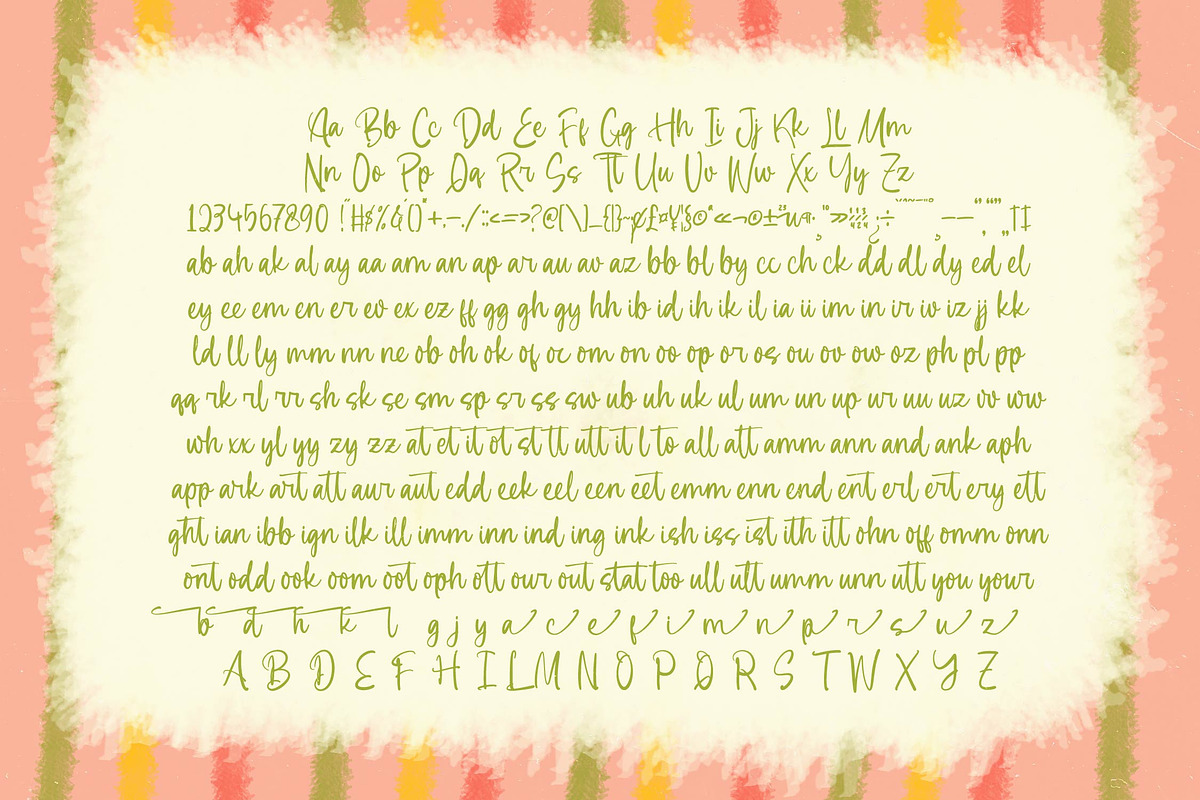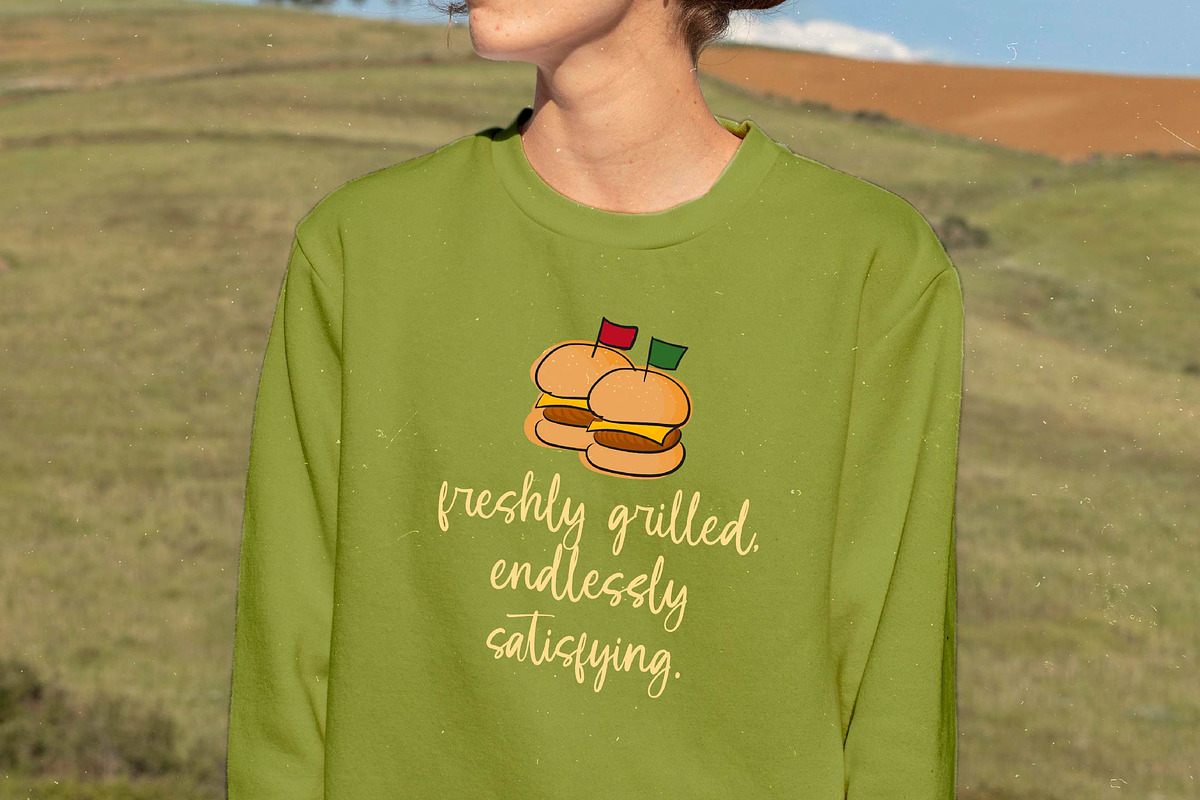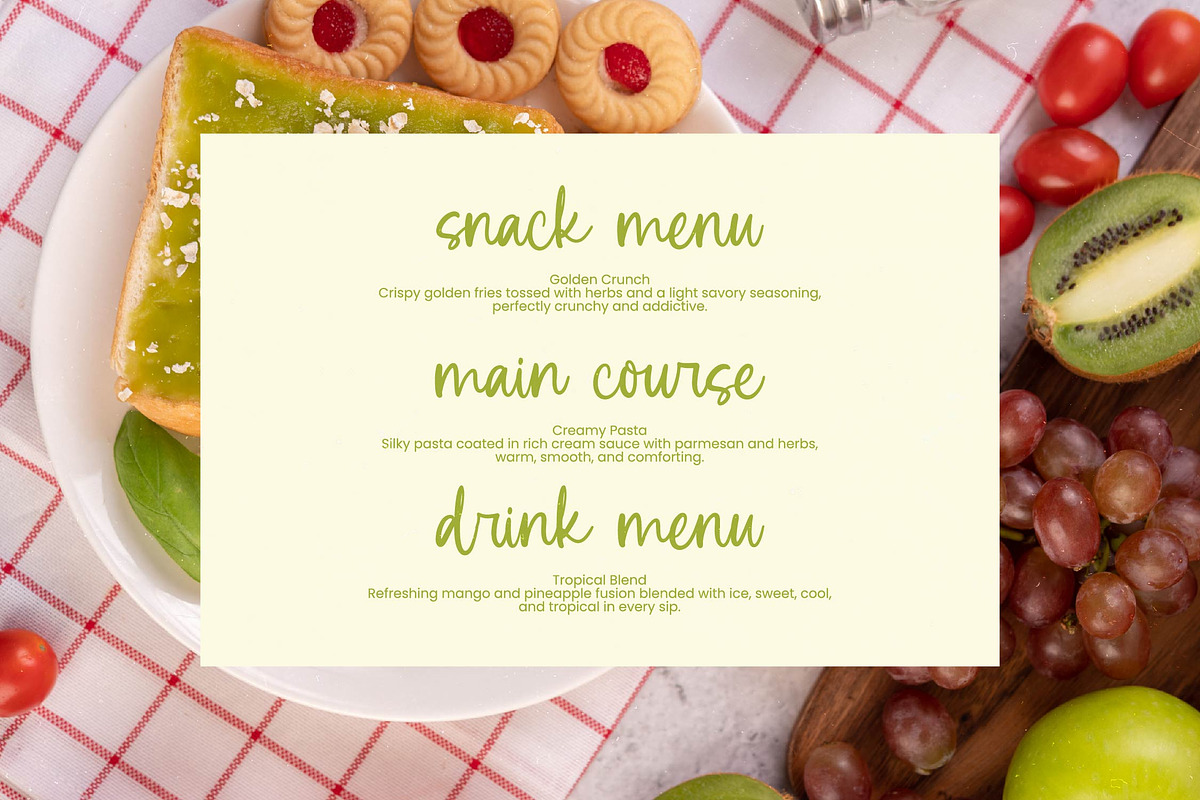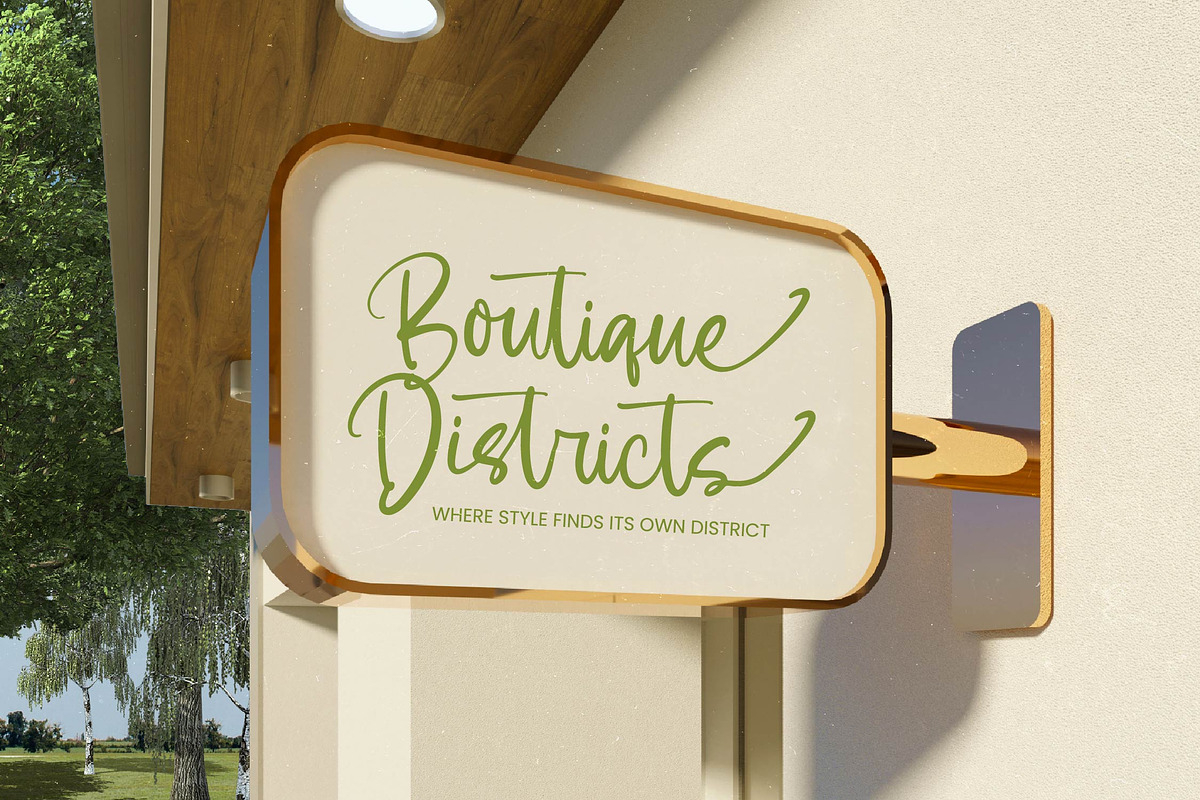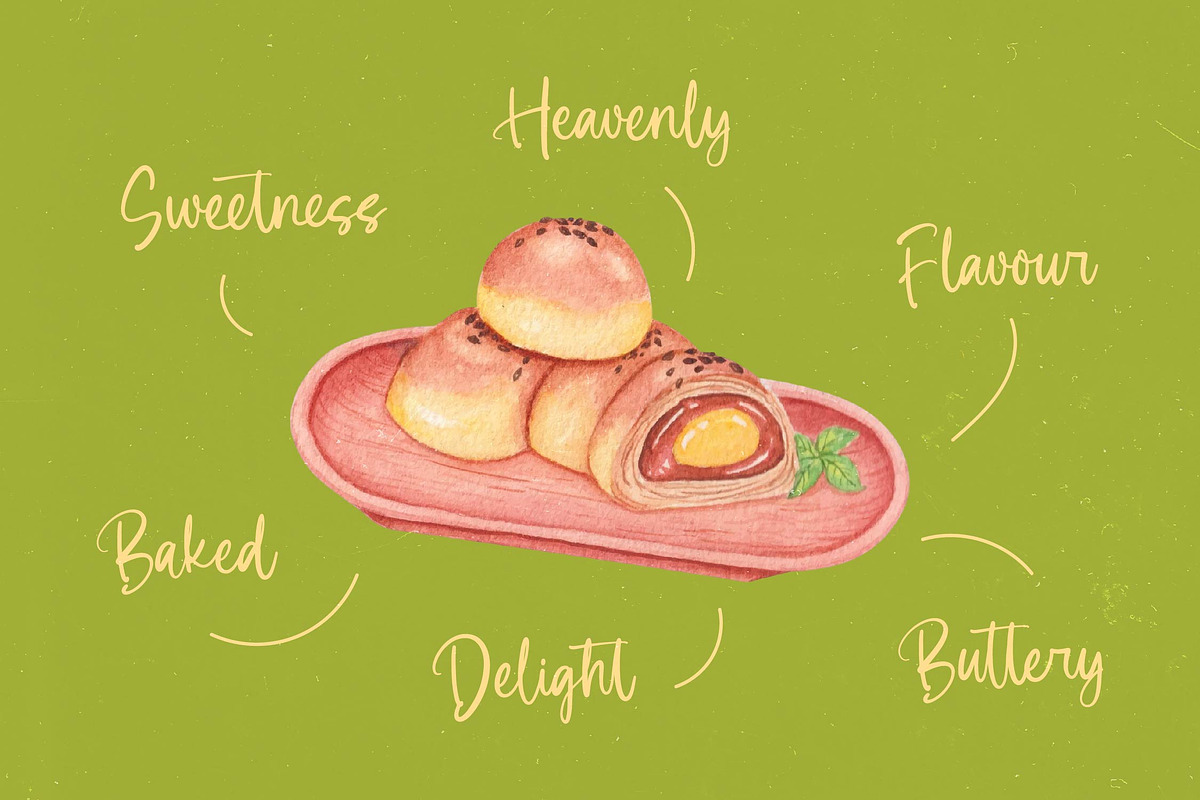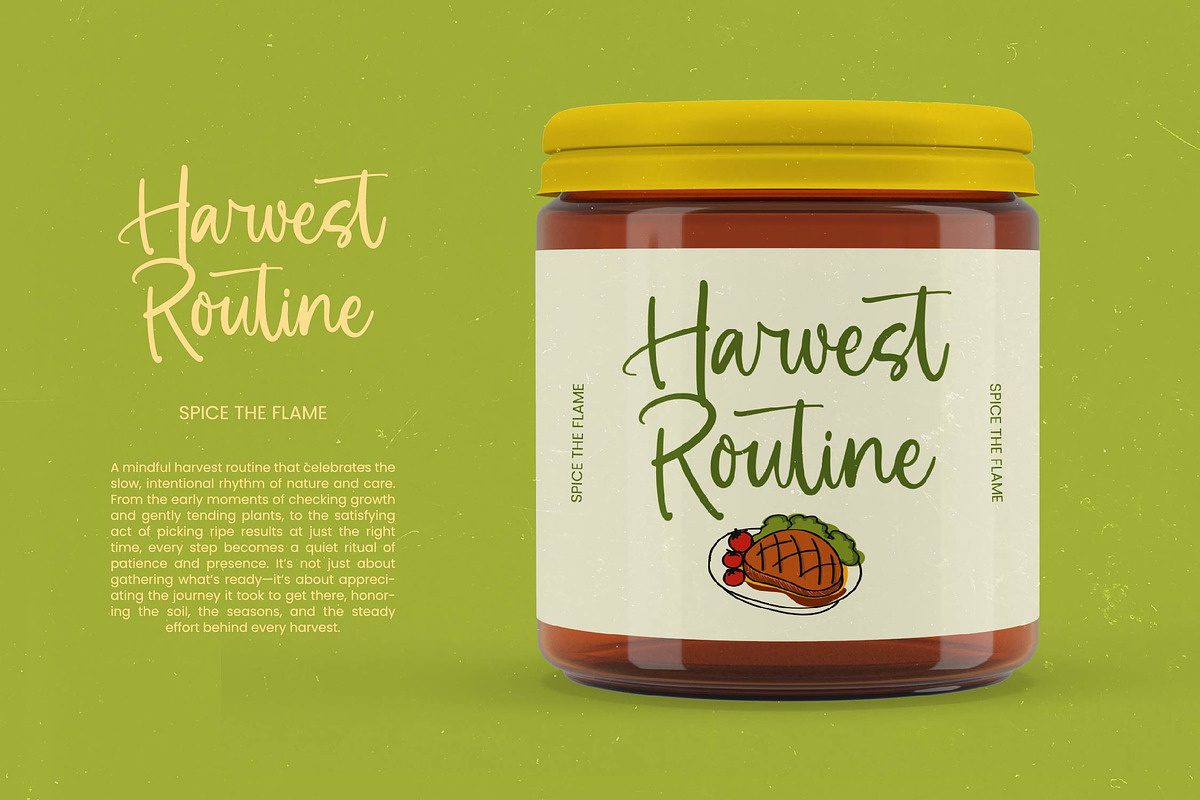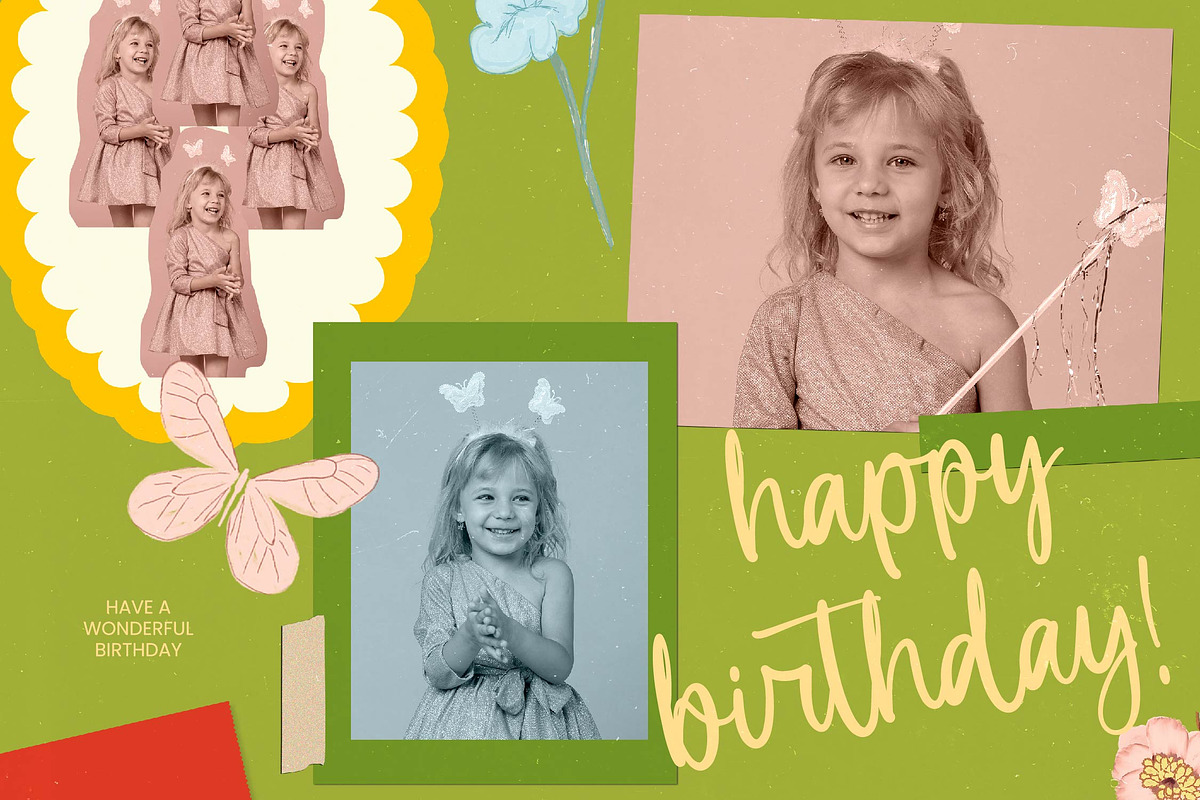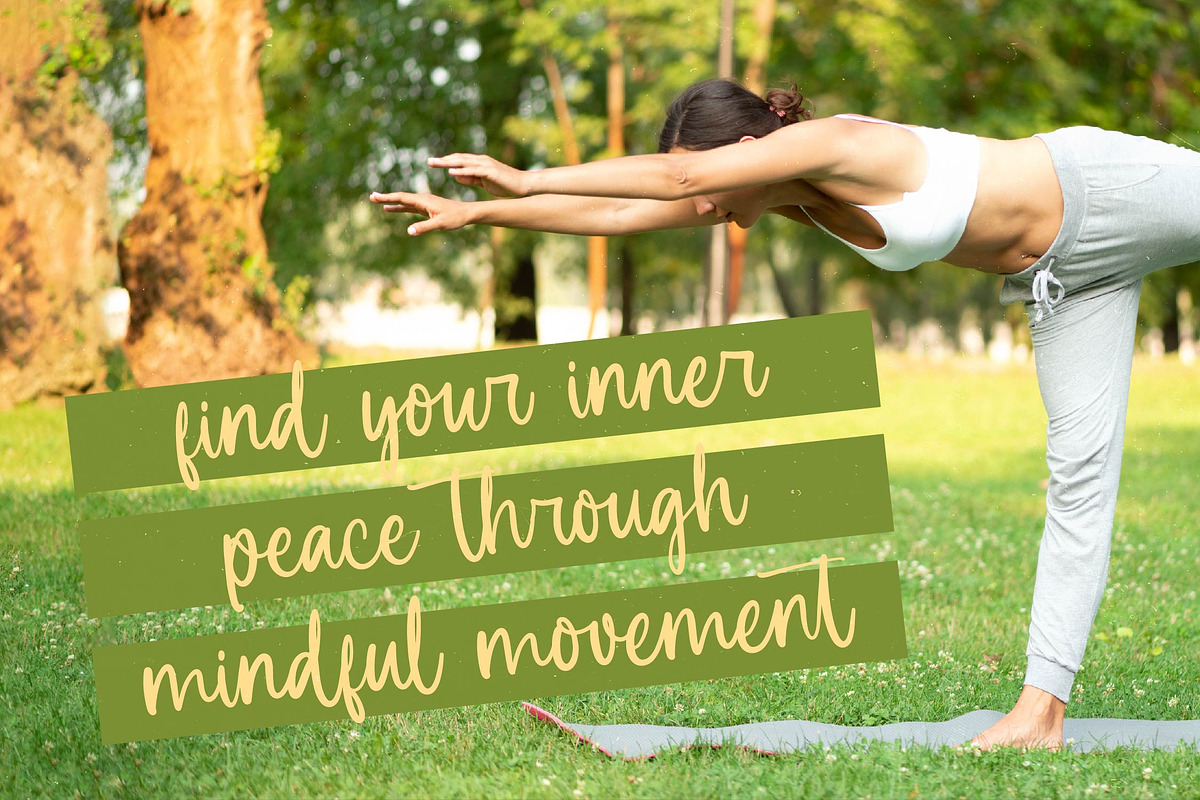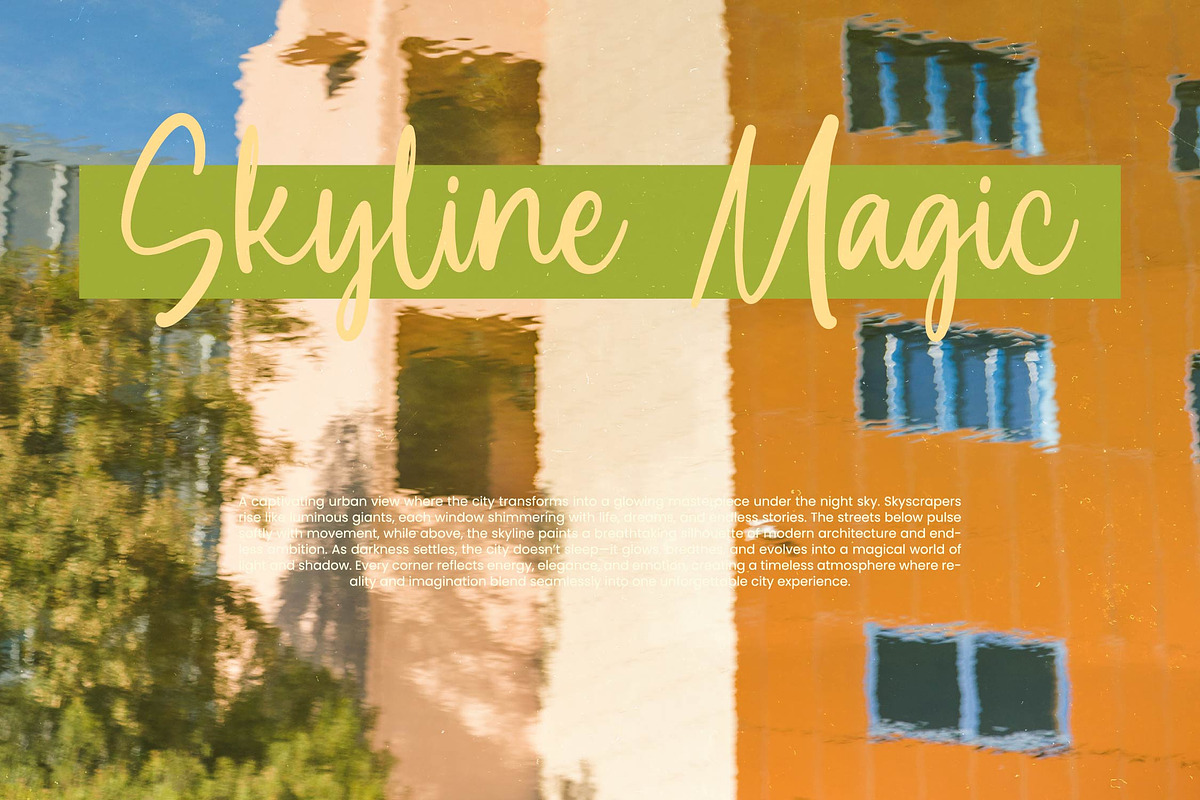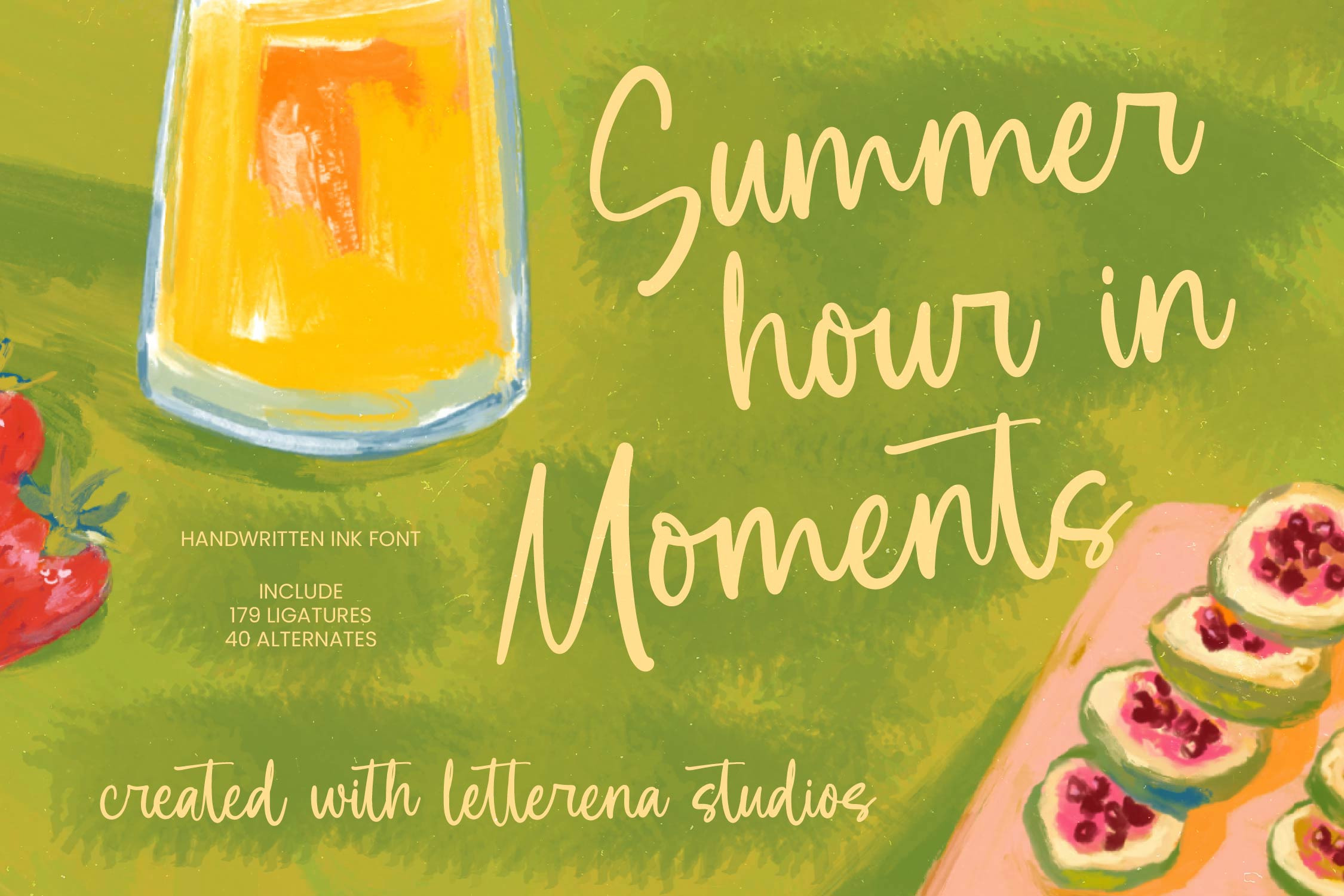
Summer Moments Handwritten Ink Font
Summer Moments - Handwritten Ink Font , Elevate your creative projects with the organic charm and fluid aesthetics of Summer Moments - Handwritten Ink Font. This meticulously crafted typeface captures the essence of authentic ink strokes, providing a personal, handcrafted feel that breathes life into digital and print media. By blending casual elegance with a professional finish, it ensures your message remains both impactful and visually engaging for any contemporary audience.
Unleash limitless creativity using a comprehensive set of 179 ligatures and 40 alternates that prevent repetitive letterforms. These advanced typographic features allow Summer Moments - Handwritten Ink Font to mimic the natural flow of human handwriting with unparalleled precision. Whether you are aiming for a rustic vibe or a sophisticated script look, this font offers the flexibility needed to maintain a unique brand identity.
Expand your brand’s reach with a typeface designed specifically for a global audience and diverse linguistic needs. With its extensive multilingual support, Summer Moments - Handwritten Ink Font adapts seamlessly across global markets, making it incredibly versatile for international projects. This ensures that your marketing campaigns and digital content retain their stylistic integrity regardless of the geographic location or language.
Transform your marketing materials into visual masterpieces across a wide range of premium applications. Summer Moments - Handwritten Ink Font is perfectly suited for lifestyle branding, luxury packaging, editorial design, and invitation suites. It is the ideal choice for designers who require a human-centric touch in modern advertising, social media graphics, and boutique signage to create a lasting impression.